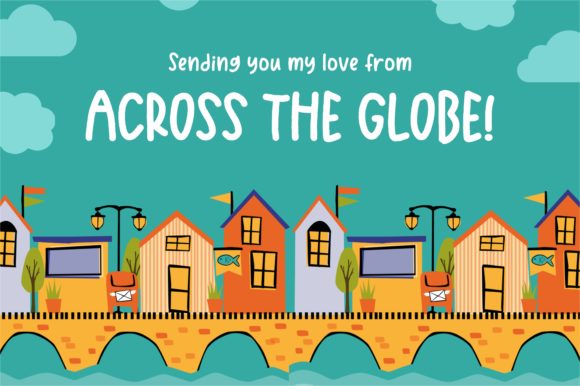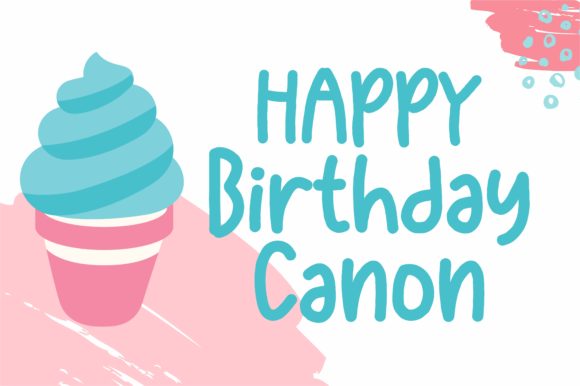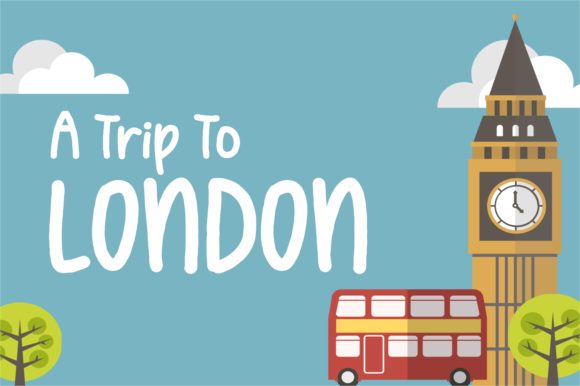
Introduction to Lazy Bear Font
Have you ever found yourself staring at a blank canvas, struggling to bring your creative vision to life? For designers, this moment is all too familiar. But what if you had the perfect companion to help spark your imagination? Enter the Lazy Bear Font, a charming and natural handwritten font that’s about to become your new best friend.
With its effortless charm, the Lazy Bear Font has the power to elevate any creative project, from whimsical greeting cards to elegant branding materials. Whether you’re working on a high-quality design for a client or a personal project, this font is sure to bring a touch of warmth and personality to your work. And the best part? It’s a free download, making it an invaluable design resource for designers of all levels.
So why settle for a generic font when you can have a Lazy Bear Font that adds a unique touch to your designs? Let’s dive into the world of this delightful font and discover why it’s a must-have in any designer’s library.
Key Features of Lazy Bear Font
- Unique and quirky design: The Lazy Bear Font is perfect for creative projects that require a playful and laid-back touch.
- Perfect for creative projects: The Lazy Bear Font is ideal for use in creative projects, such as logos, branding materials, and advertising campaigns.
Honest Review: Lazy Bear Font
I recently had the chance to work with the Lazy Bear Font, and I must say it’s been a great addition to my design arsenal. This free download has been a lifesaver for my creative projects, providing a high-quality font that’s easy to work with.
Here are some things that really stand out:
- ✨ Easy to read: The Lazy Bear Font is incredibly clear, even at smaller font sizes.
- ✨ Unique style: The font’s quirky, handwritten feel adds a touch of personality to any design.
- ✨ Versatile: It works well for a wide range of creative projects, from social media graphics to presentations.
Of course, no font is perfect, and there are a few limitations to keep in mind:
- ⚠️ Limited character set: The Lazy Bear Font doesn’t have as many characters as some other fonts, which can be a problem if you need to use special characters.
- ⚠️ Transparency issues: Be careful when using a transparent background, as the font’s lines can sometimes become distorted.
Overall, I’m really impressed with the Lazy Bear Font. It’s a fantastic free download that’s definitely worth checking out – especially if you’re looking for a unique, high-quality font for your creative projects.
Tips for Getting the Most Out of Lazy Bear Font
For the best results, use the Lazy Bear Font on a high-quality design resource, such as a business card or brochure. You can also experiment with different font sizes and colors to create a unique look. Don’t forget to download the font for free to get started.
The Lazy Bear Font is perfect for creative projects, such as logos, posters, and infographics. You can also use it in presentations, documents, and other design materials where a unique touch is needed.